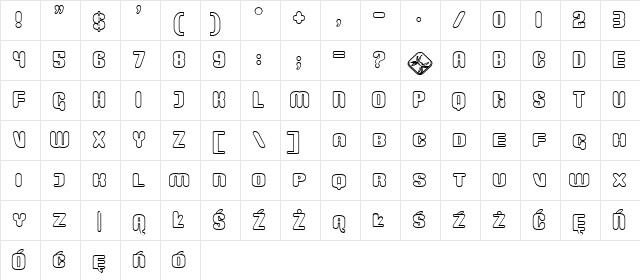
Monster Outline Regular
Design Context for Monster Outline Typeface
Monster Outline is built around its visual character rather than neutral utility — its distinctive forms are designed to make an impression at display sizes.
Font Pairing: Pair with a clean neutral sans-serif for body copy to let Monster Outline's character lead without overwhelming the composition.
Pro Tip: Use Monster Outline exclusively at display sizes — it was designed to be seen, not read at length. Let a neutral companion handle body copy.